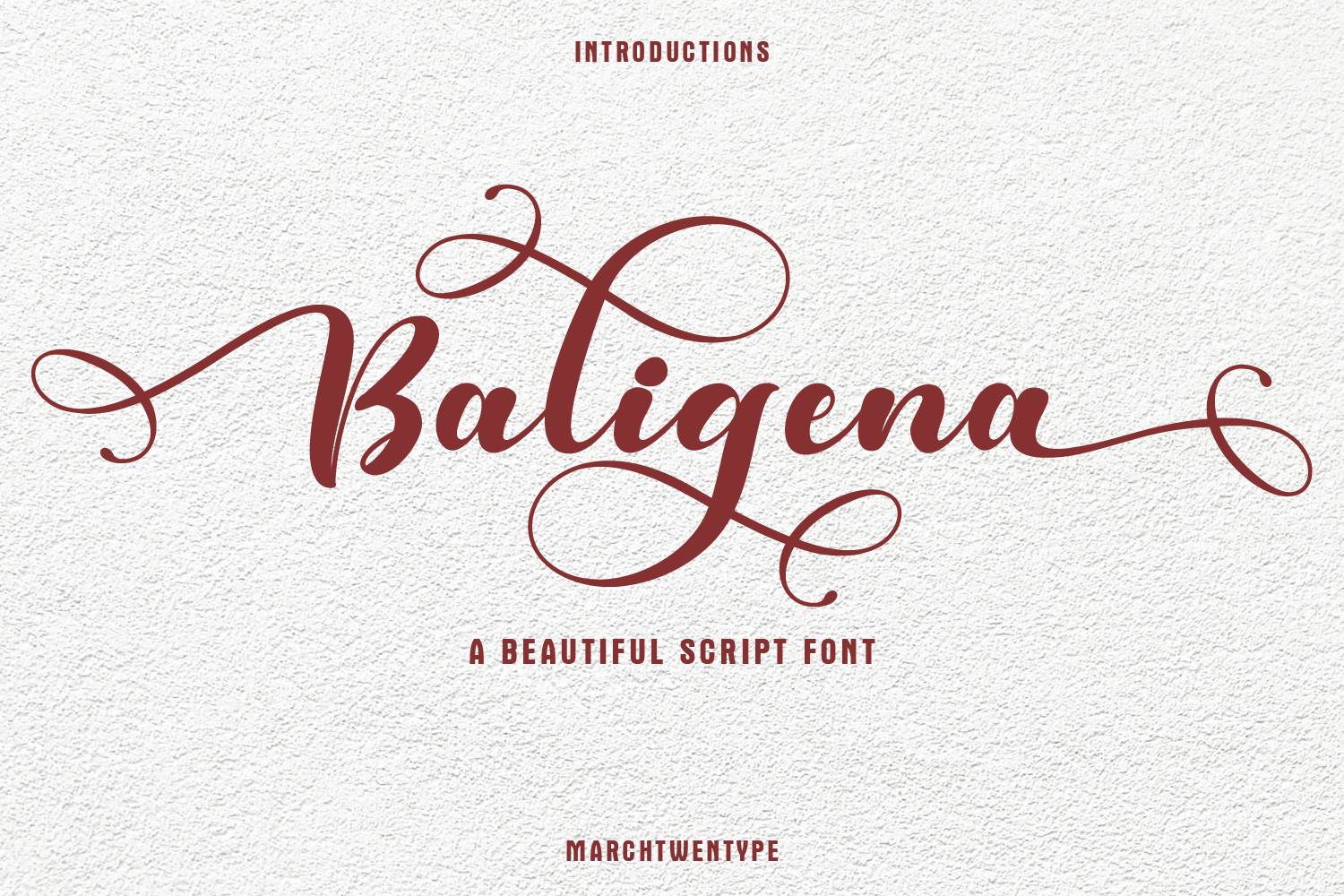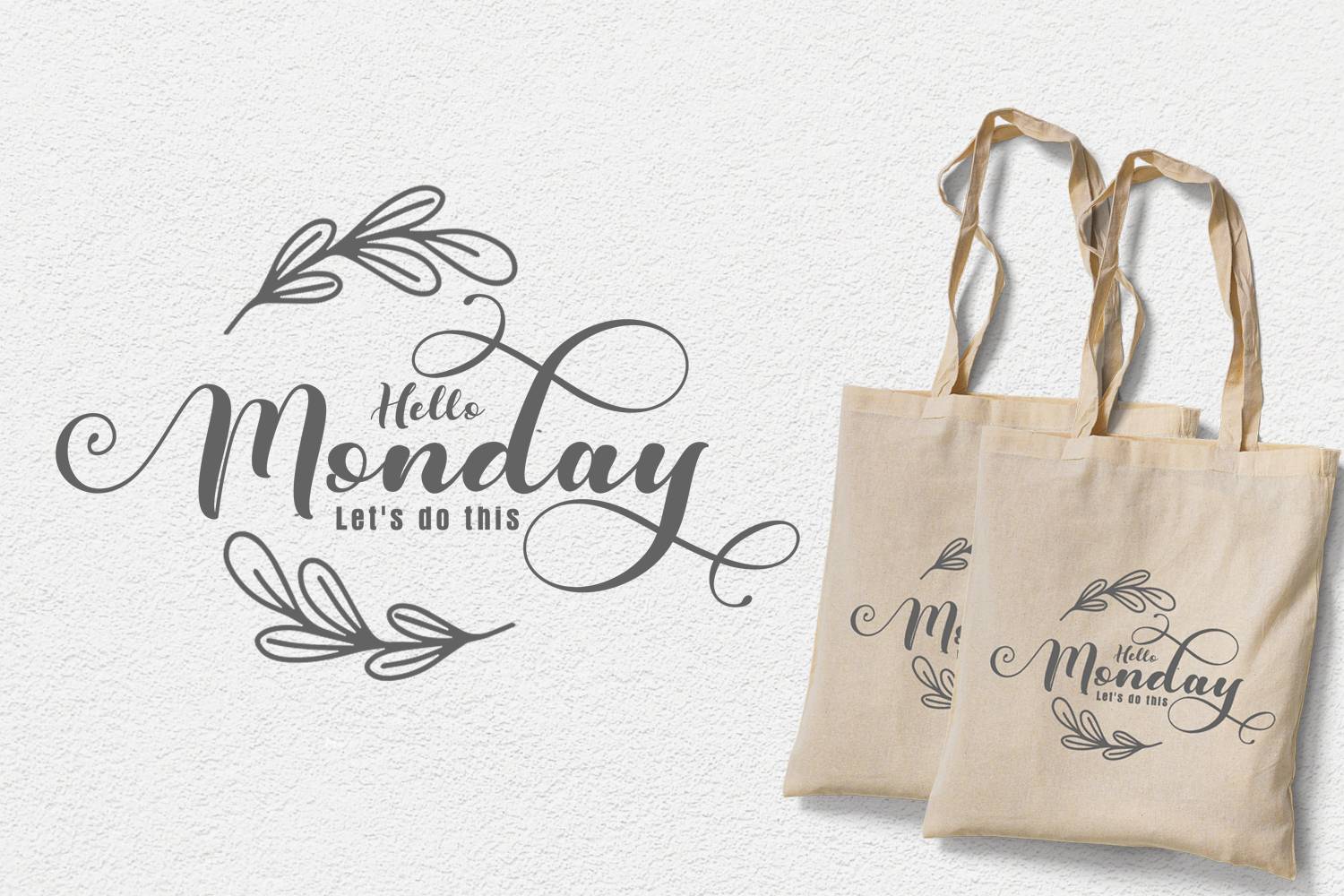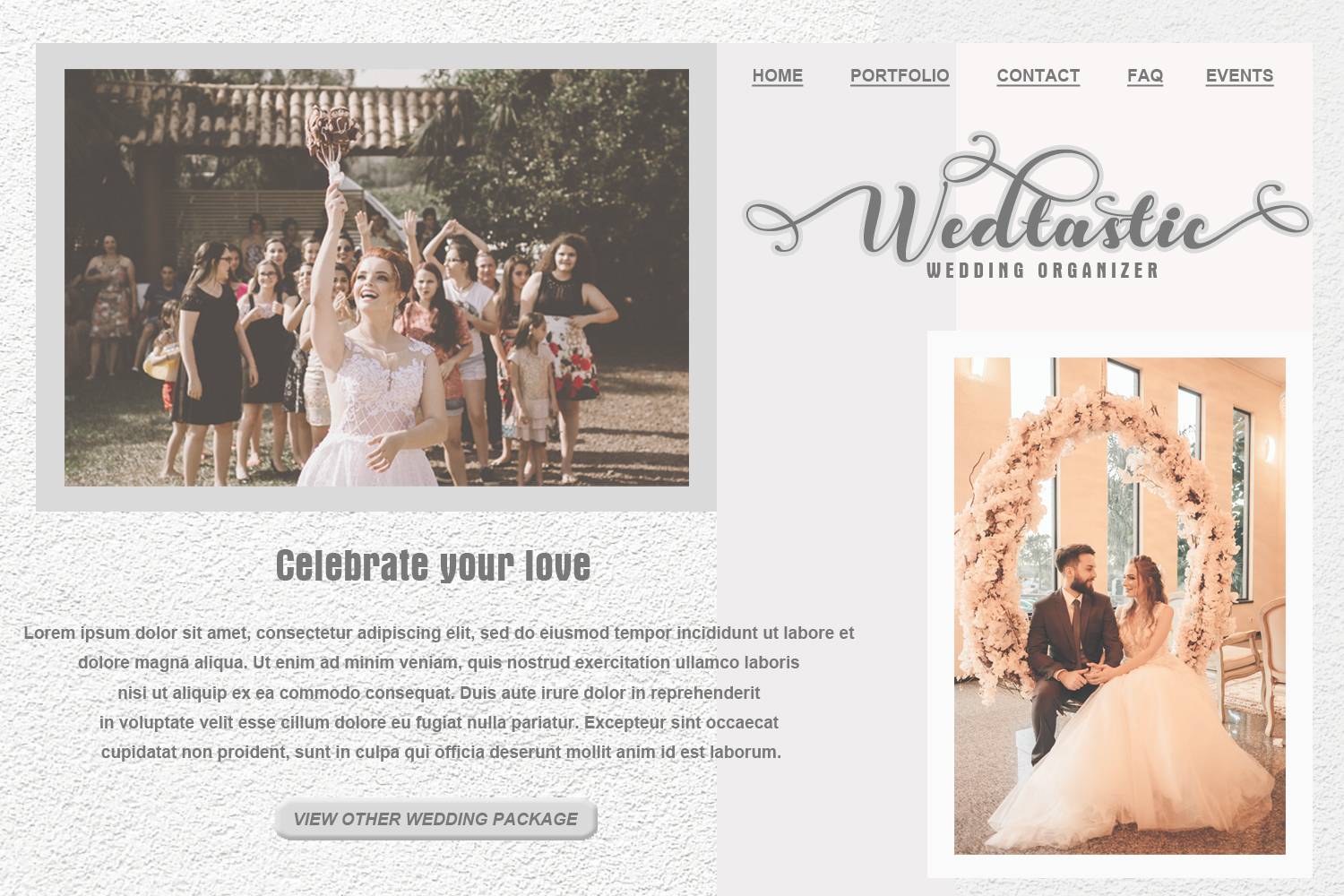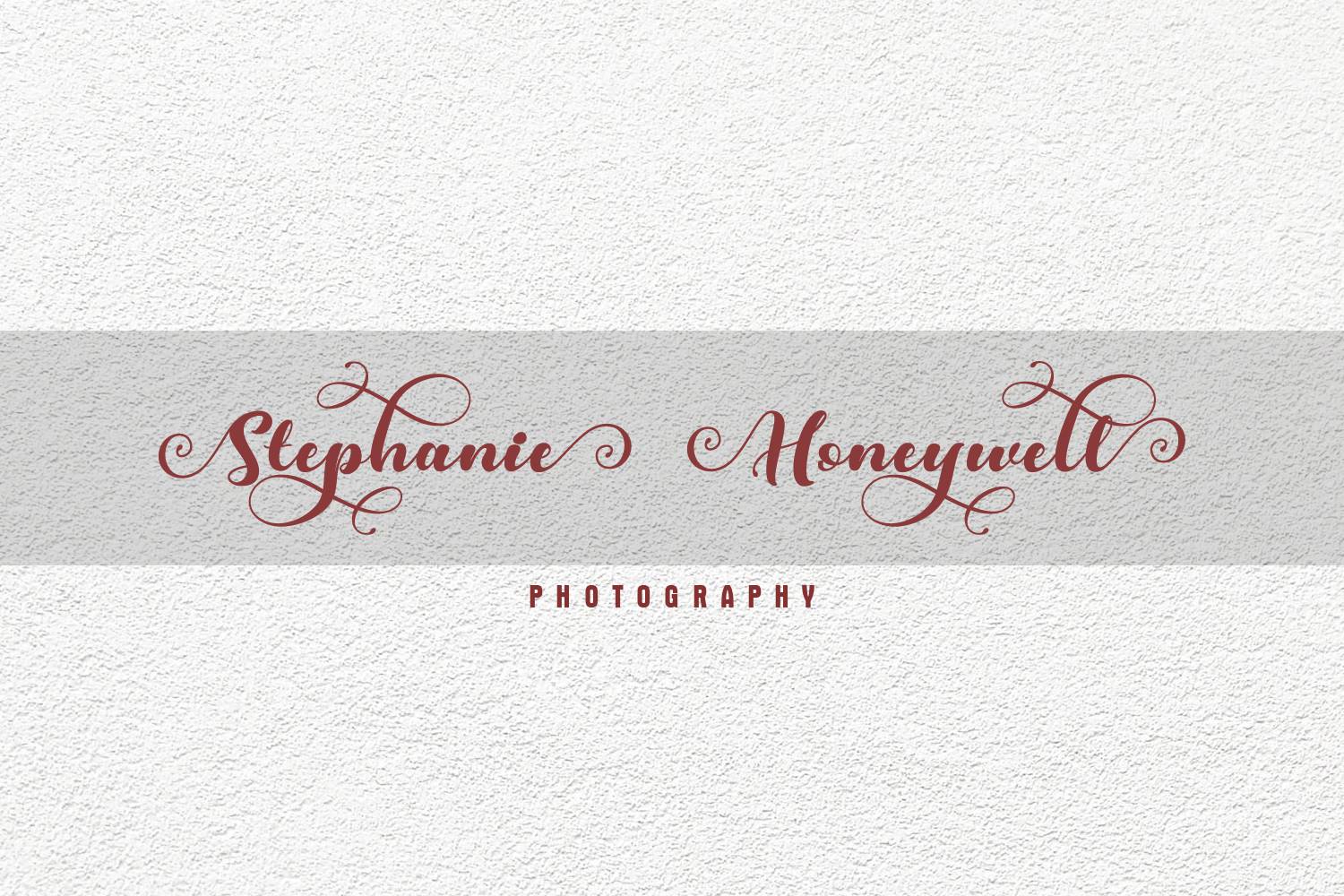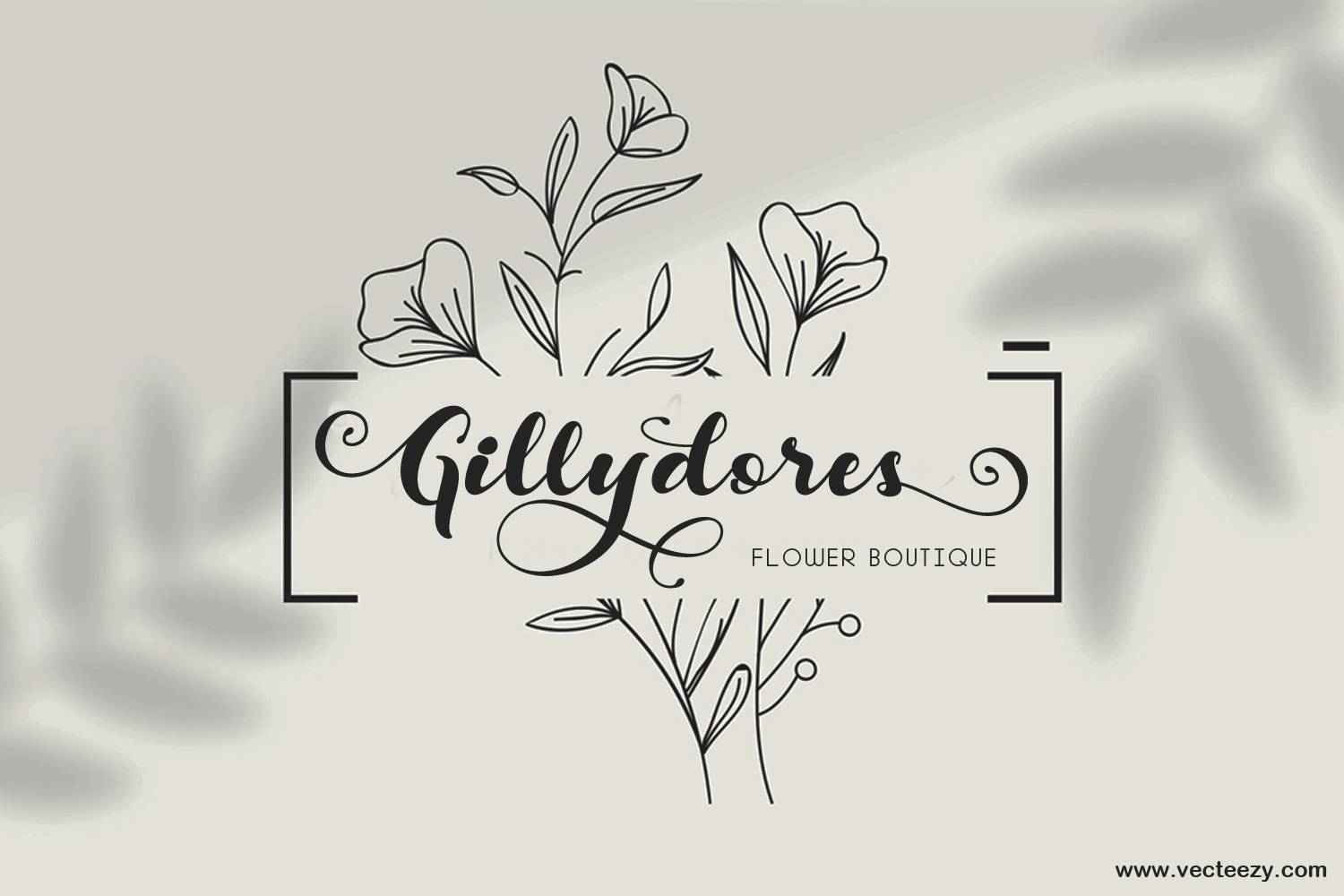
Baligena is a stylish script font with a bold, flowing appearance that blends modern calligraphy with playful flourishes. Its strong contrast between thick and thin strokes, combined with elegant swashes and smooth curves, makes it perfect for eye-catching headlines, branding, and creative projects that want to convey a sense of sophistication and charm. This font works well in invitations, logos, and fashion or beauty packaging where a graceful, yet confident personality is desired.
Baligena Font
About Baligena Font
| Font family | Baligena Font |
| Designer | Eko Nurcahyo |